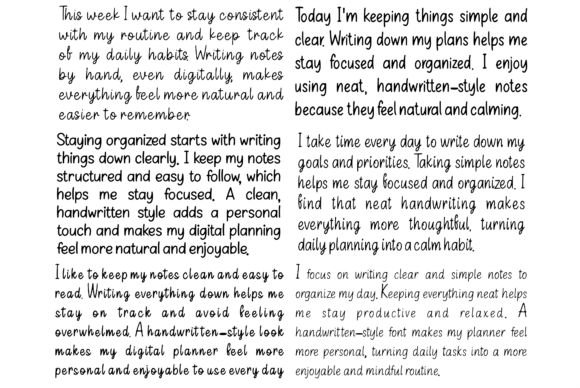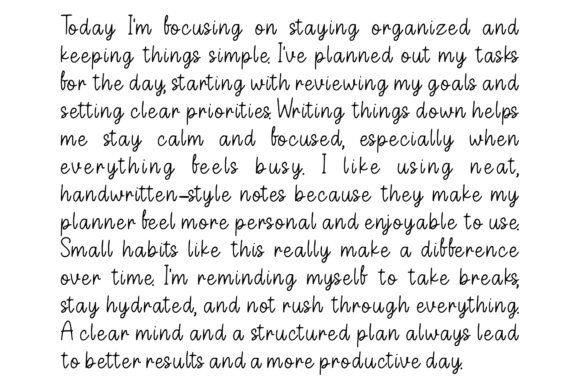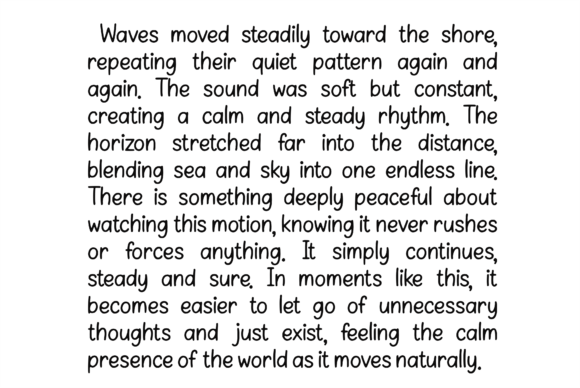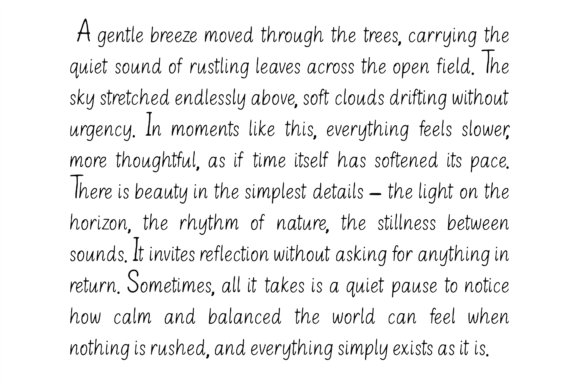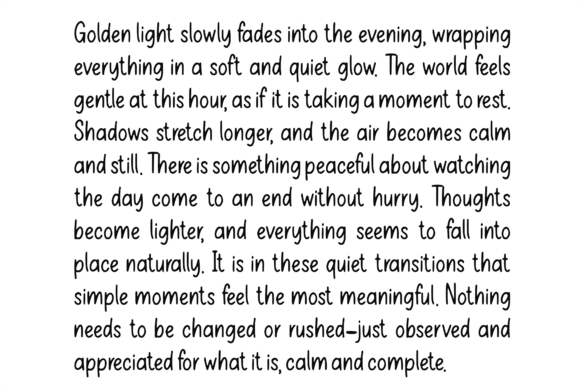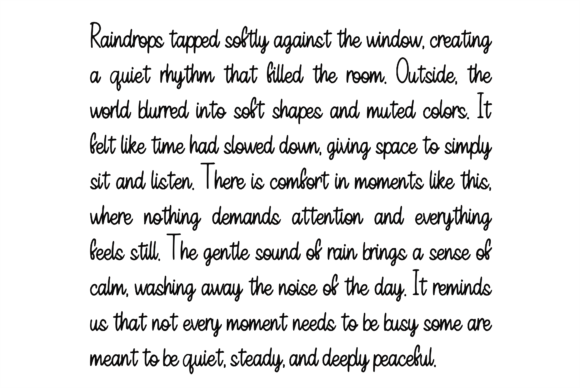
Bringing a Human Touch to Your Digital Space with the Handwritten Font Bundle
I’ll never forget the moment I was working on a project, trying to find the perfect font to give it a personal touch. My client wanted a digital planner that felt like a warm, fuzzy blanket – cozy and inviting. I scoured the internet for hours, but nothing seemed quite right. That was until I stumbled upon the Handwritten Font Bundle. ✨
This collection of natural, easy-to-read scripts instantly transported me to a world of journaling, planning, and personal note-taking. The fonts were like a breath of fresh air, infusing my design with a sense of intimacy and mindfulness. In this article, I’ll share my love for the Handwritten Font Bundle, its features, and how to make the most of it in your designs.
- ✨ A wide variety of natural, easy-to-read scripts that mimic the cozy aesthetic of pen on paper
- ✅ Perfect for digital planners, habit trackers, personal blogs, and more
- ✅ Neat, structured prints and flowing, casual cursives to suit your style
- ✅ An essential toolkit for turning clinical digital notes into a beautiful, personalized routine
While the Handwritten Font Bundle is amazing, there are a few things to keep in mind: 🤔
- ⚠️ Some fonts may have limited OpenType features, which could limit your design flexibility
- ⚠️ A few fonts might require manual kerning for optimal results
The Designer Inspiration Behind the Handwritten Font Bundle
The Handwritten Font Bundle was created with the intention of bringing a human touch to digital designs. The designer, a lover of journaling and personal note-taking, wanted to create a collection of fonts that would make digital planners, habit trackers, and personal blogs feel more intimate and mindful.
Q: What type of designs is the Handwritten Font Bundle best suited for?
A: The Handwritten Font Bundle is perfect for digital planners, habit trackers, personal blogs, and any design that requires a personal touch.